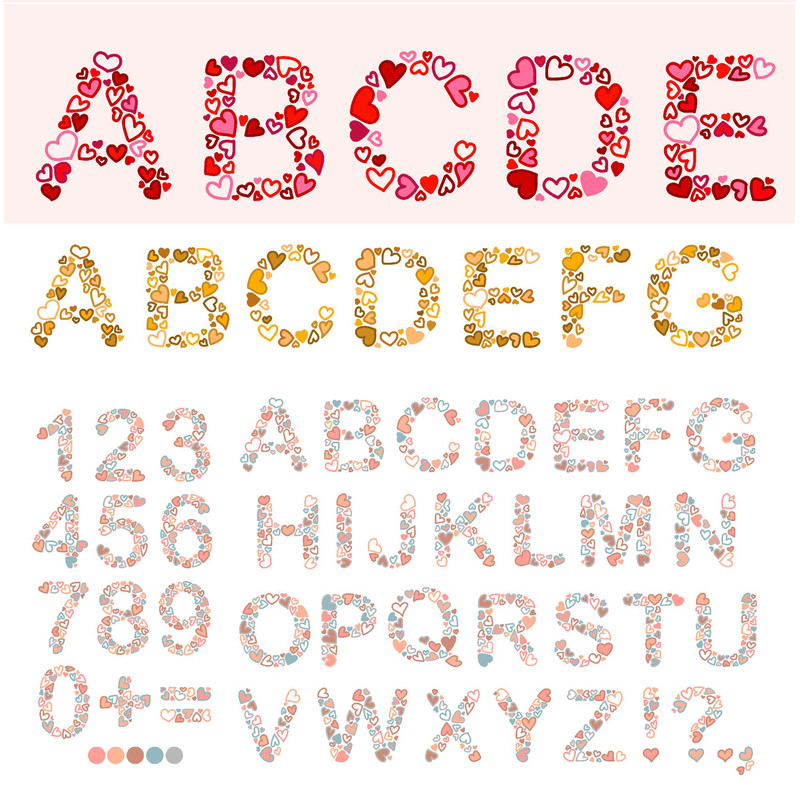
A set of clipart and fonts for St. Valentine's Day. Flowers and letters of hearts. Pink Wallpaper and background of hearts, to decorate your design. Lettering for love cards.